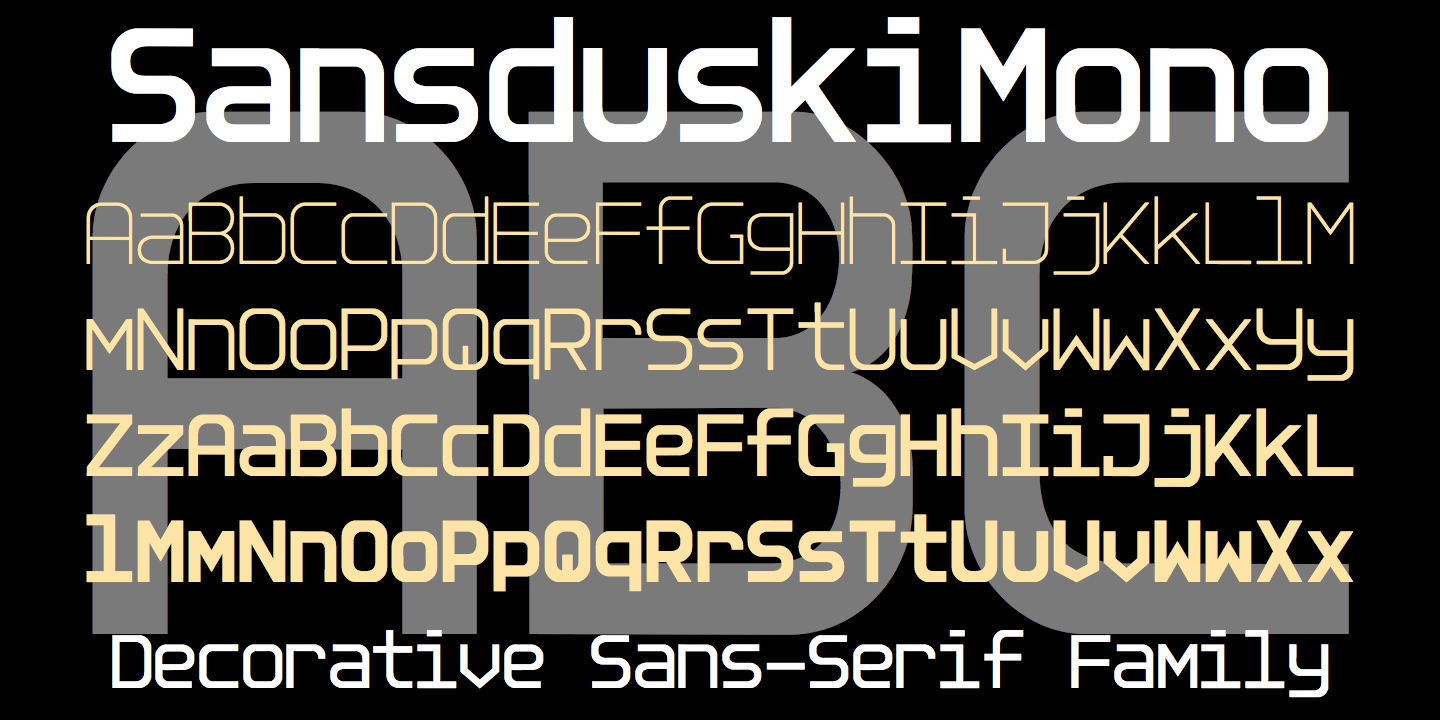
Looking for a clean and minimal monospaced typeface that brings clarity and precision to your designs? Sansduski Mono Font Free Download offers a modern take on the classic monospace style, perfect for coding projects, tech branding, editorial layouts, and digital interfaces.
Whether you're designing a developer website, a futuristic app, or sleek digital products, Sansduski Mono Font Free Download adds a sharp, professional edge. The font’s clean geometry supports both functional and stylish design needs.